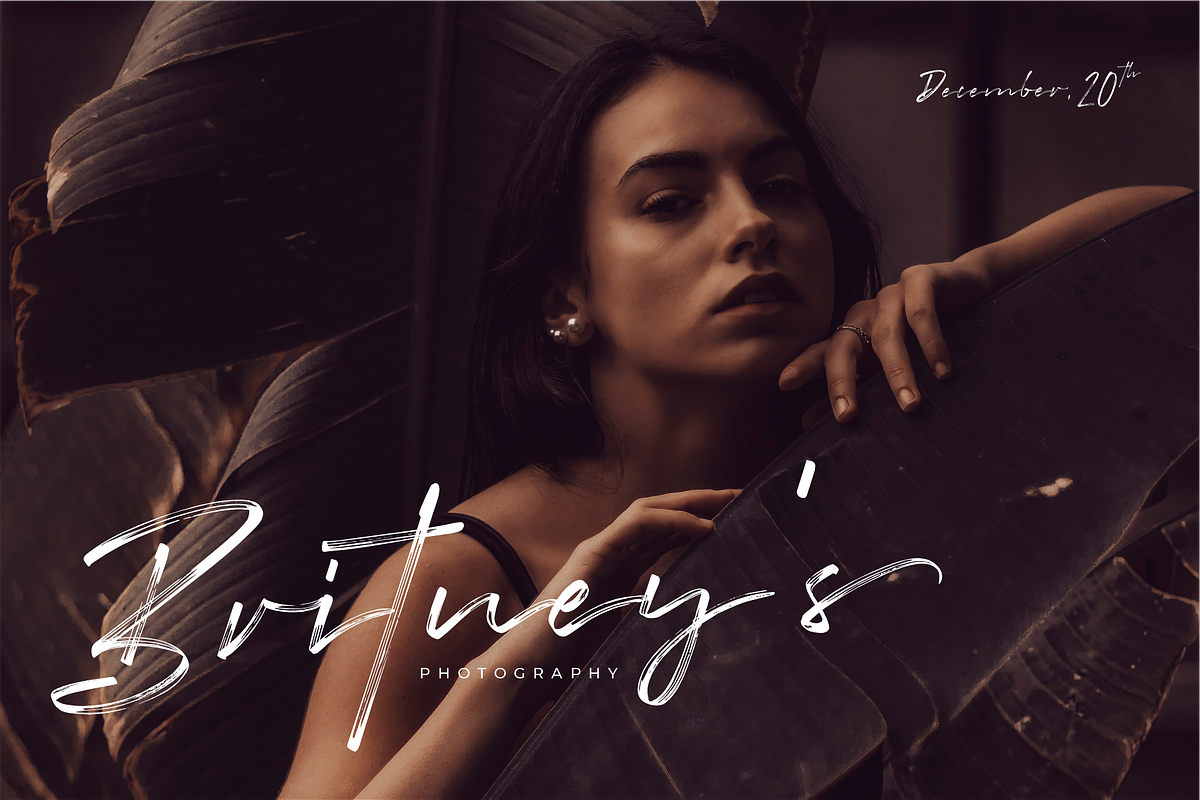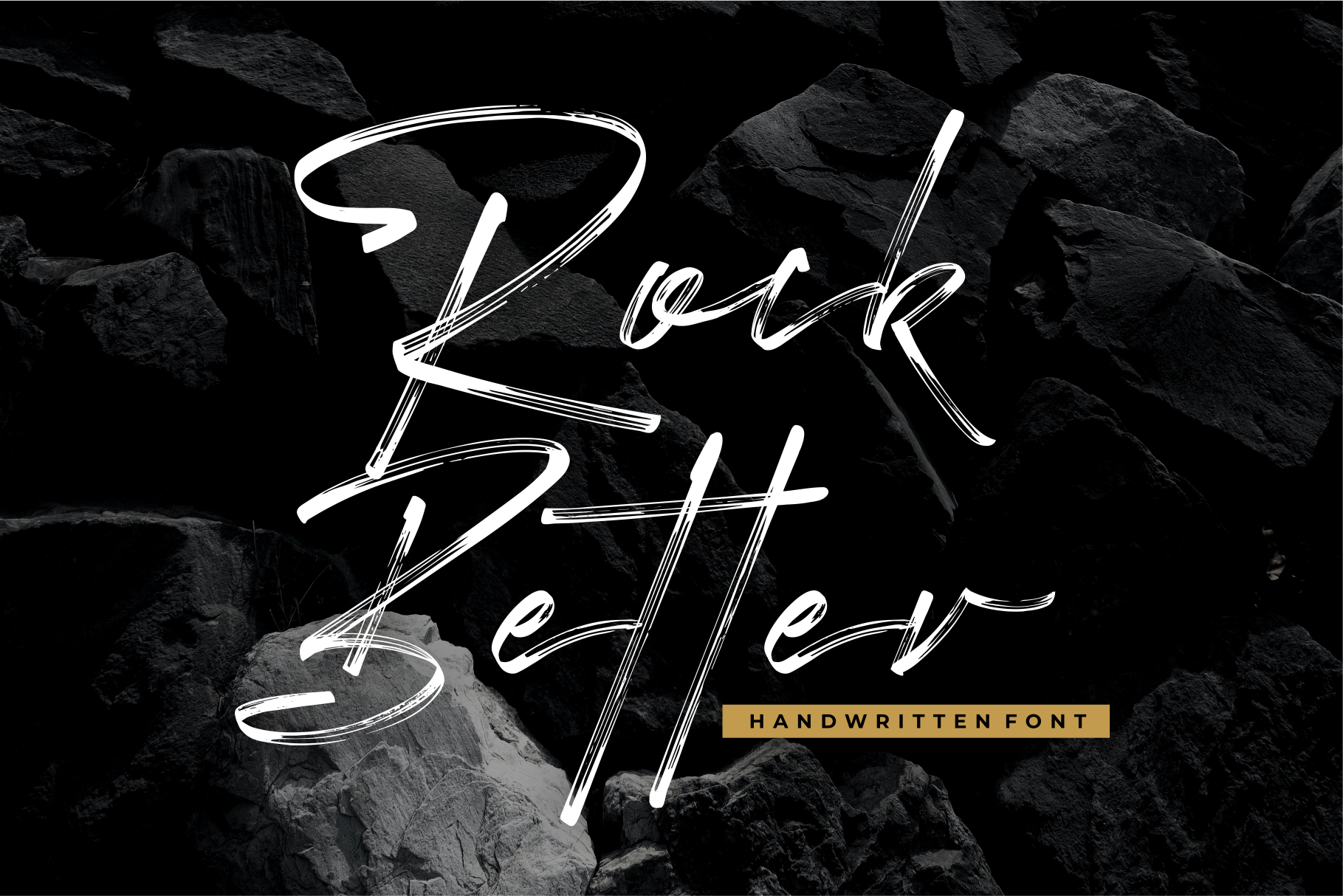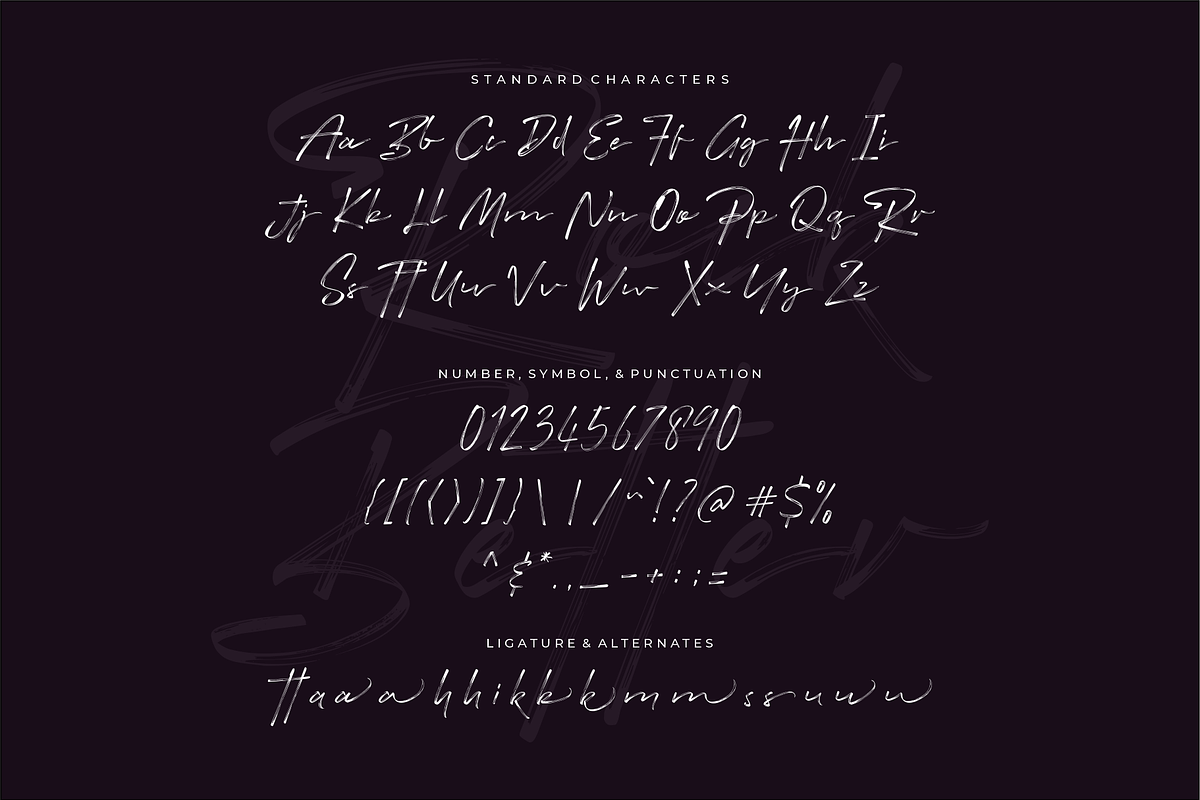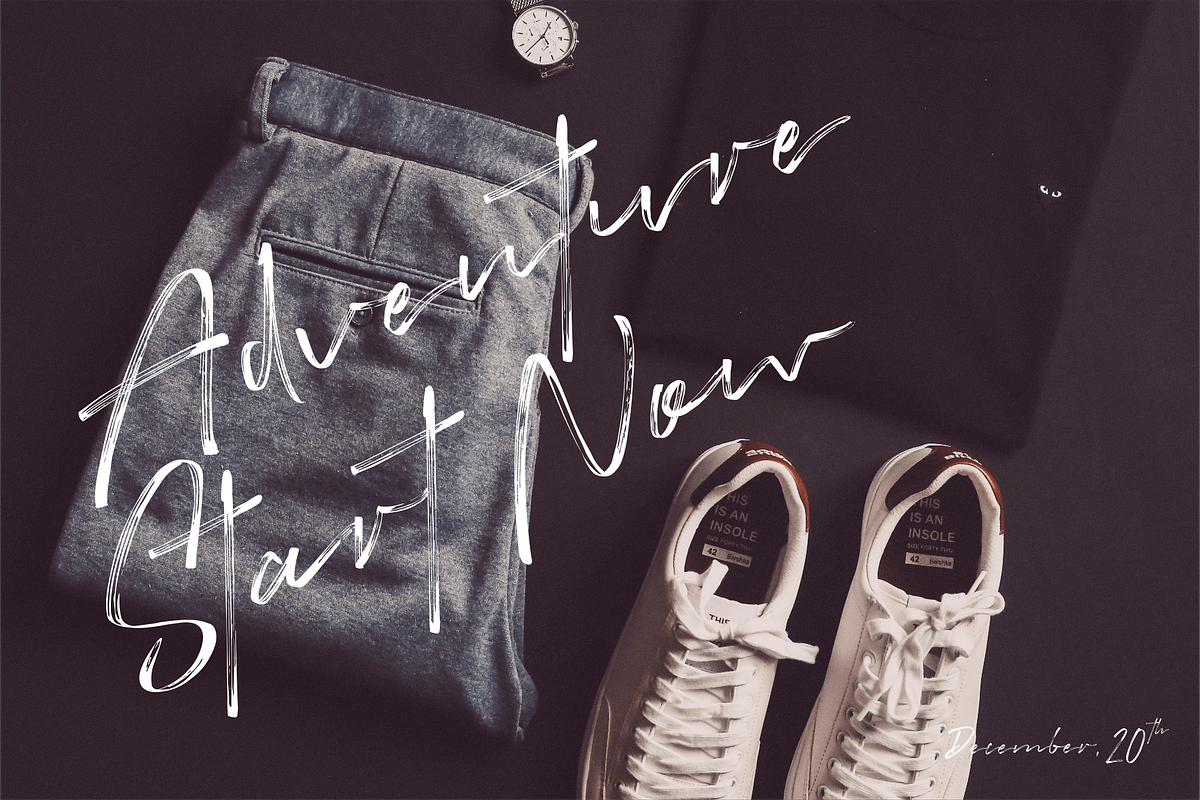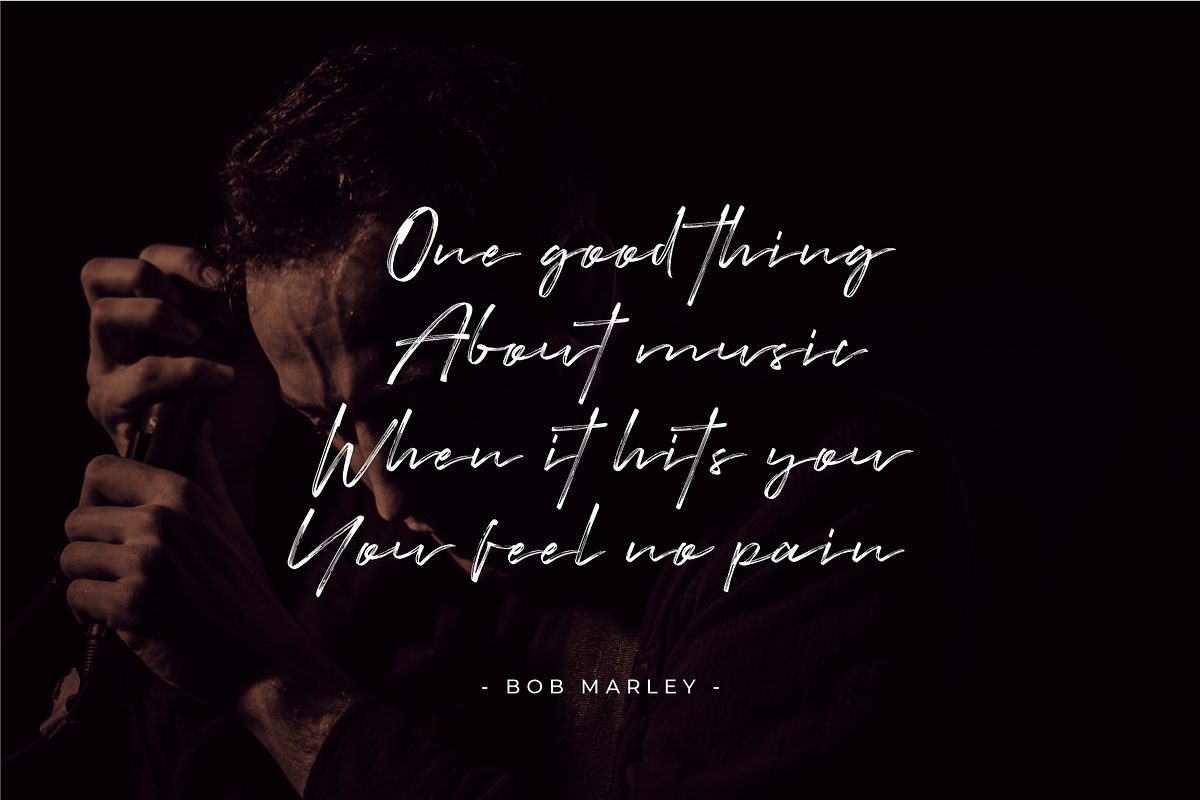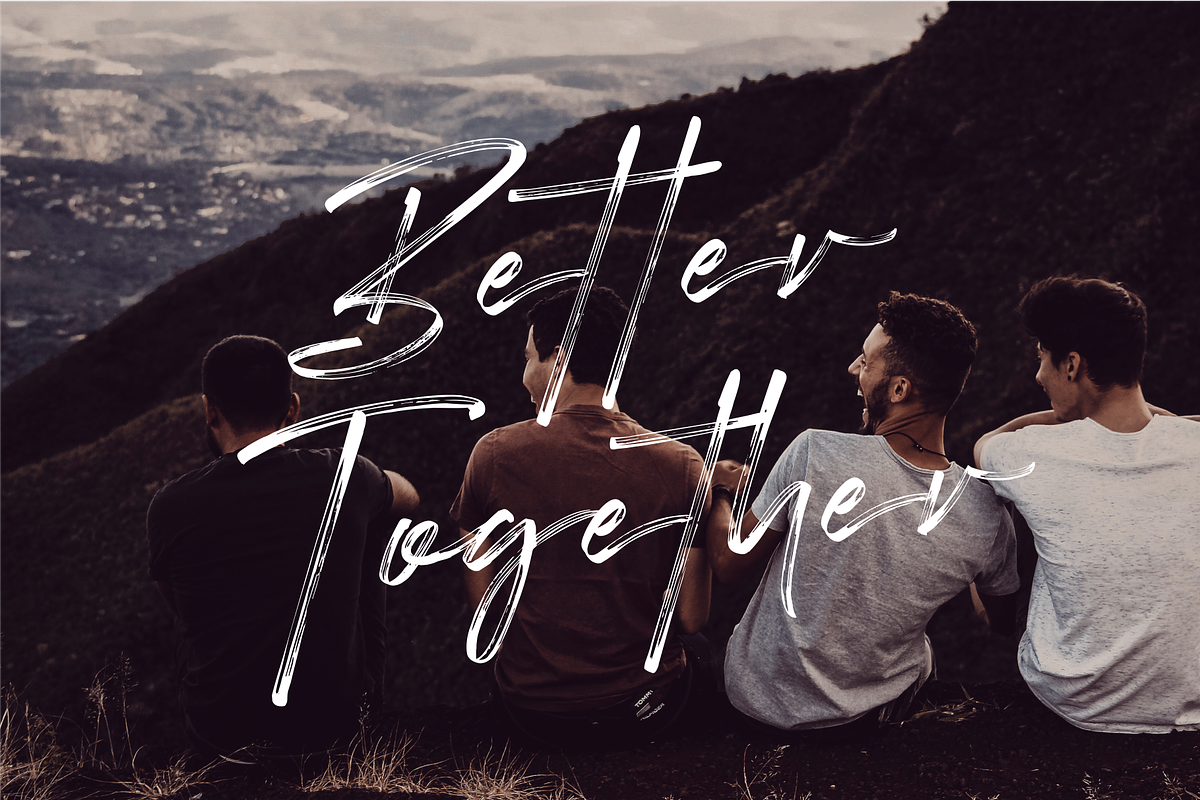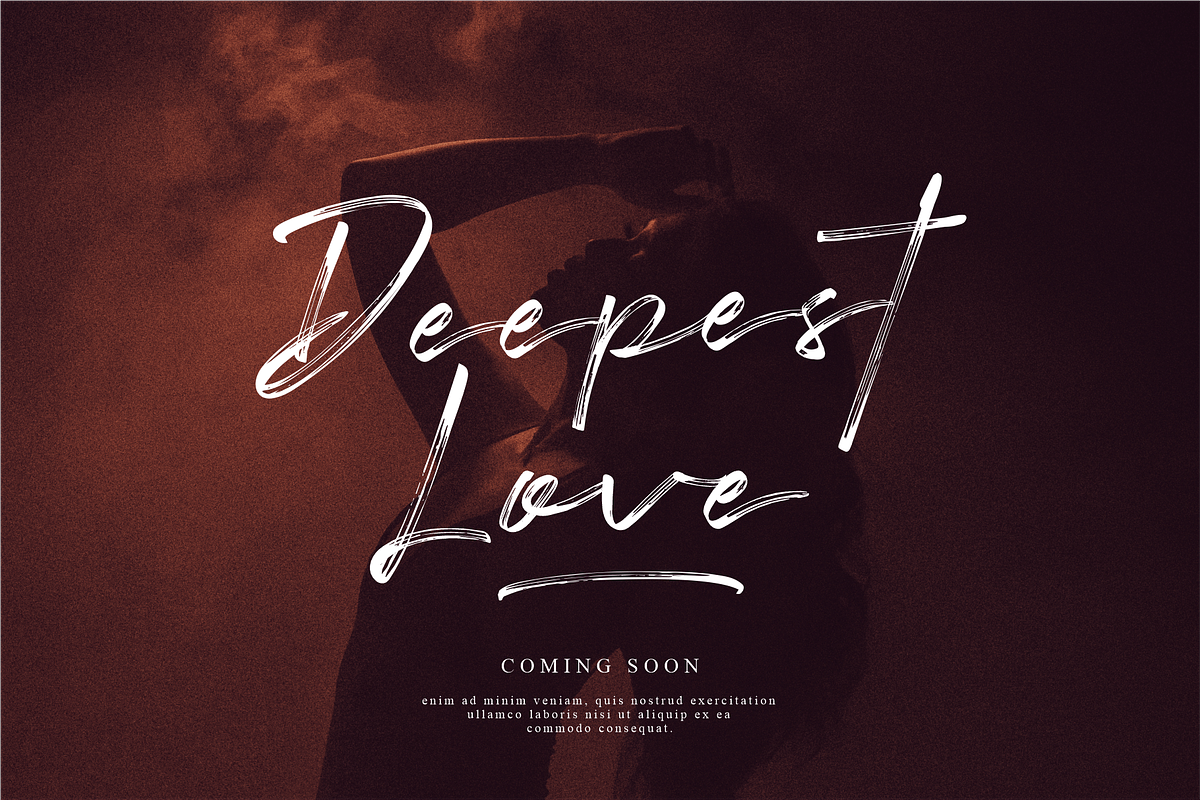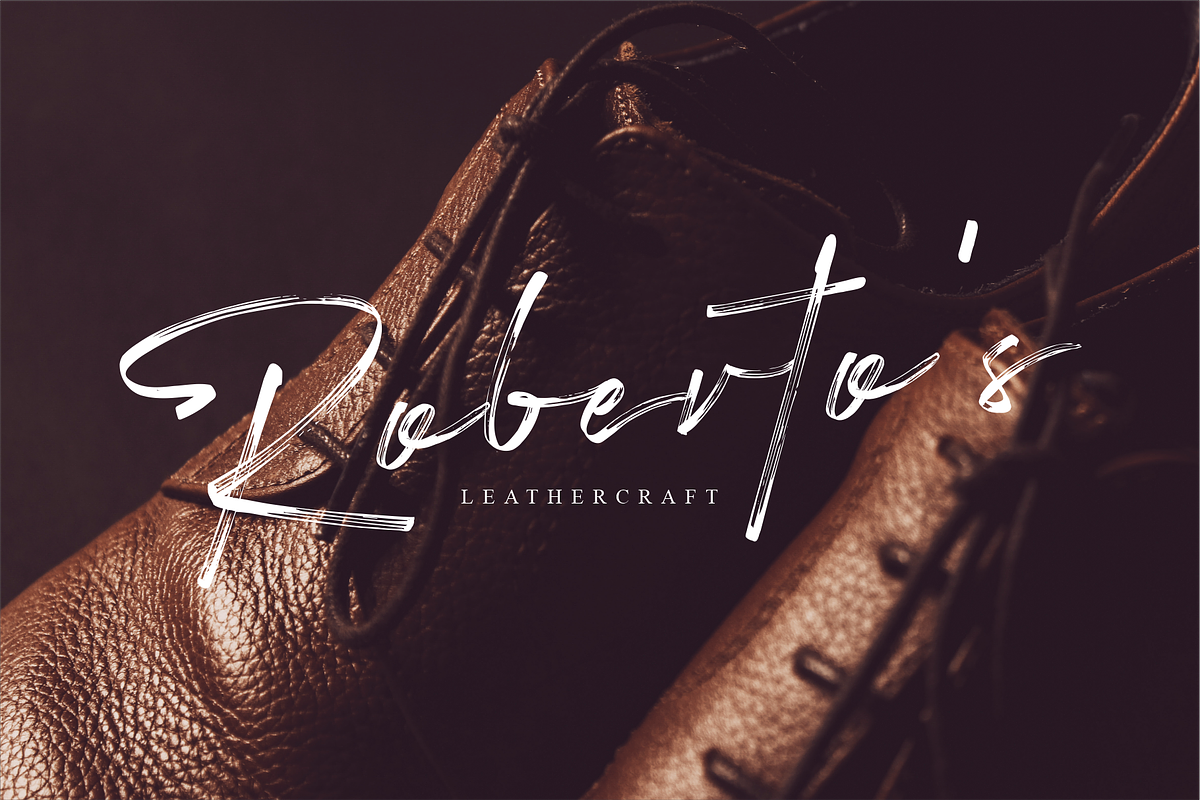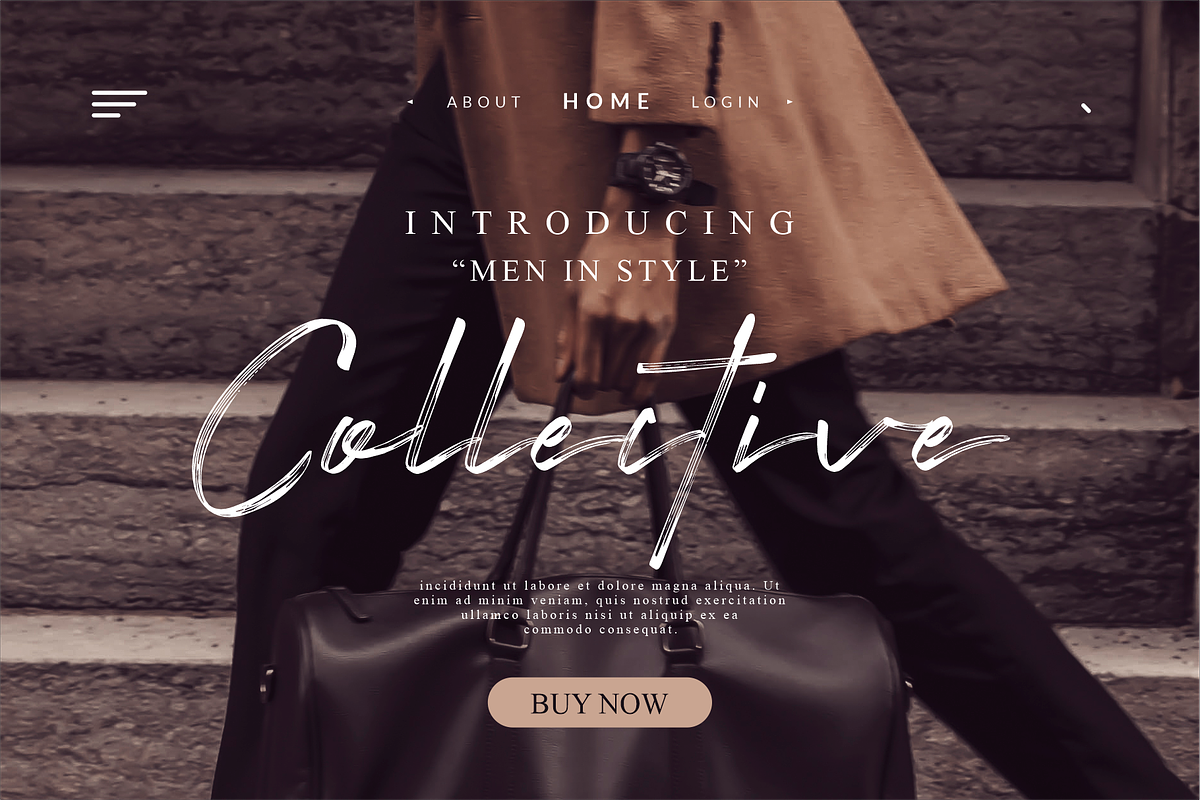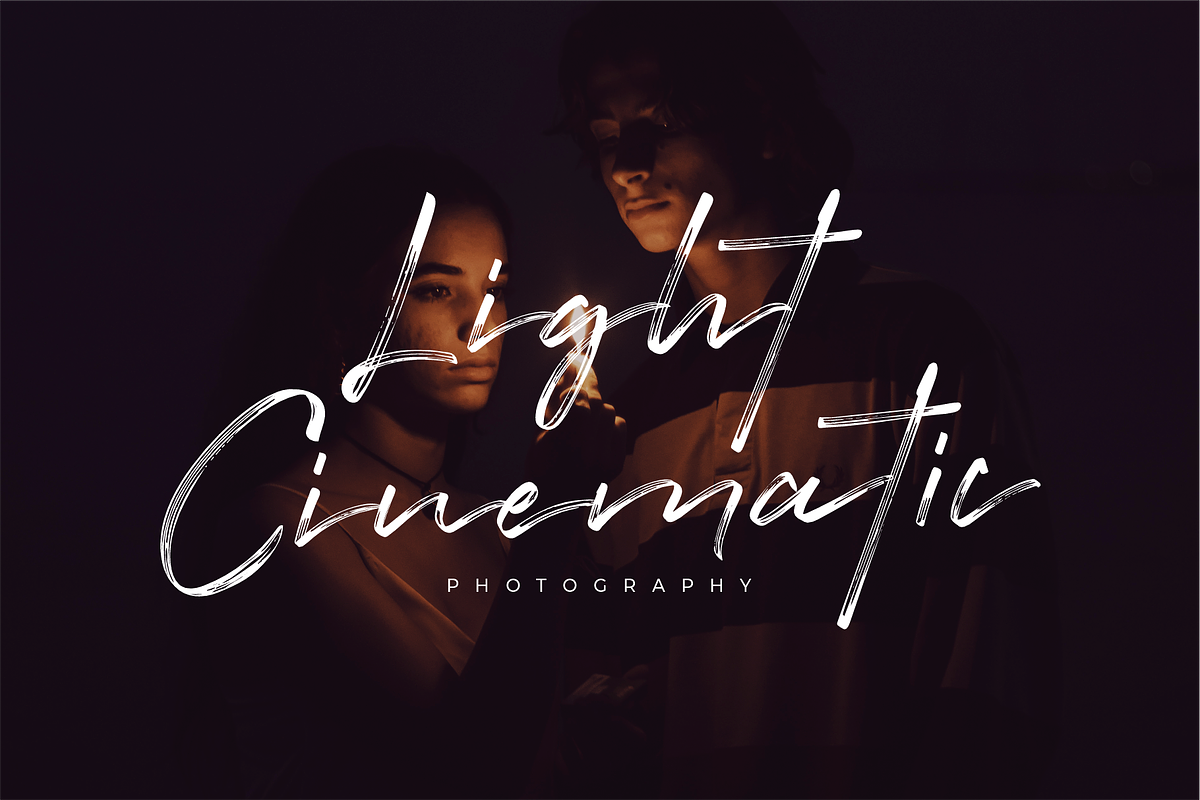
Rock Better - Handwritten Font
Rock Better is inspired by the lettering freestyle with a quick brush stroke. Each stroke of this font is made using paper and a brush pen. The rough texture of this handmade font gives all sorts of glamor to its look.
Rock Better perfect for all advertisement, branding, Logo design, Quotes product packaging or stylish text overlay to any background or purpose.